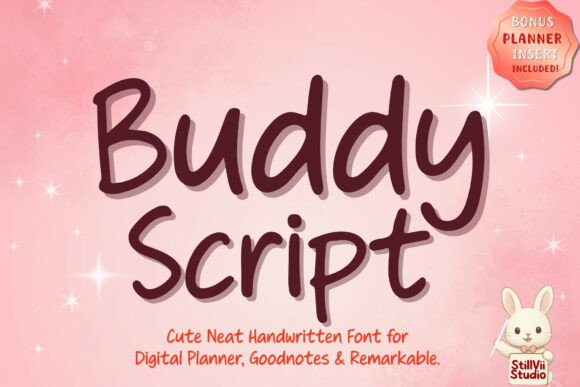
Buddy Script
Finding the right design elements can be challenging, but Buddy Script offers an exceptional collection that elevates your work instantly.
Whether you are creating POD (Print on Demand) products, wedding invitations, or social media graphics, Buddy Script is an ideal fit.